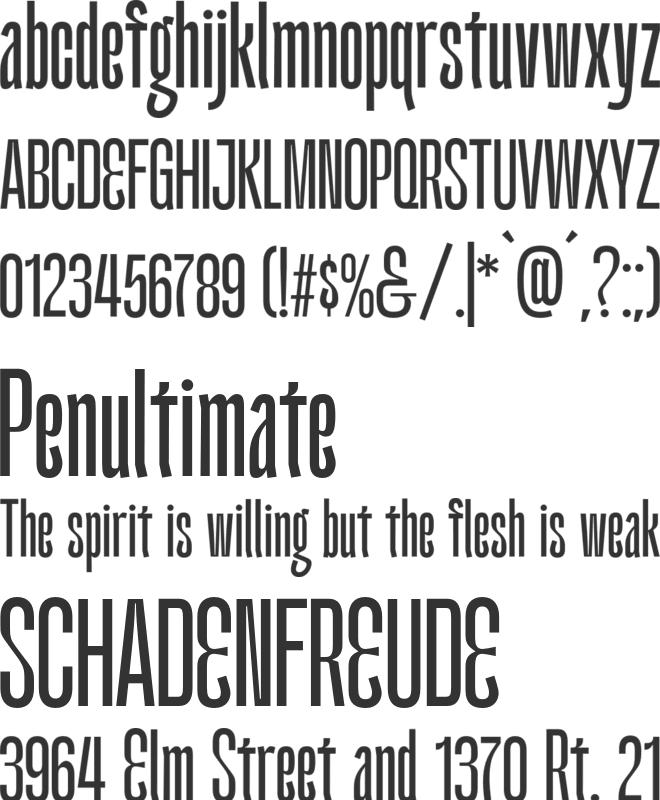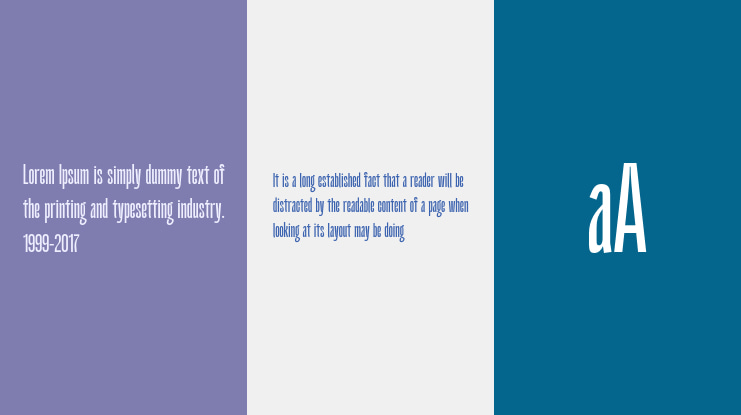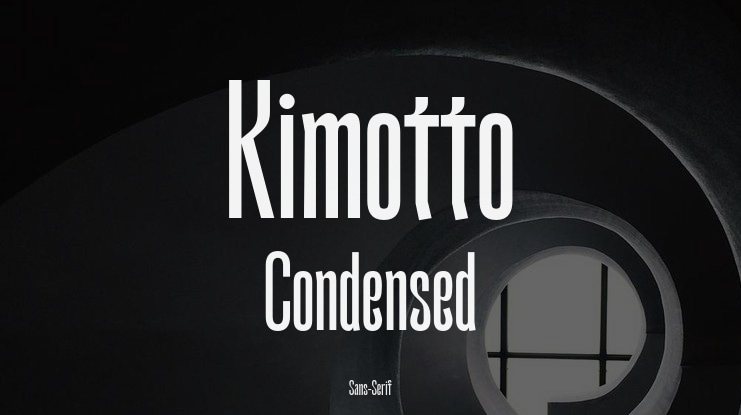
Kimotto Condensed is a modern sans-serif condensed typeface
designed to be both bold and space-efficient. Its sleek, narrow
letterforms make Kimotto perfect for headlines, posters, branding,
packaging, editorial layouts, and user interfaces where space and
clarity matter most. Each character is carefully crafted to maintain high
legibility, even in tight spaces.